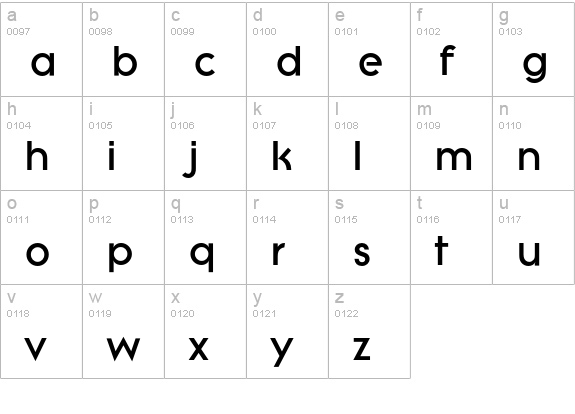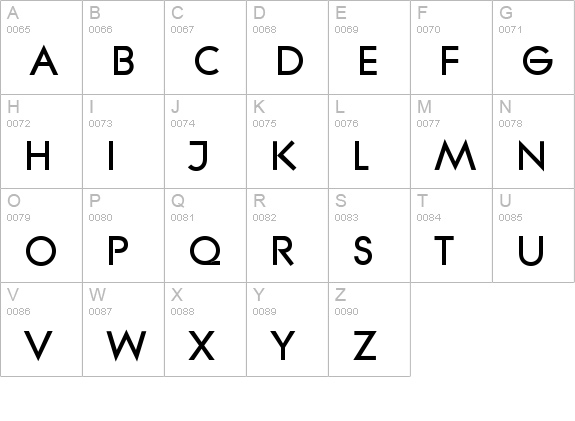
Litera-Heavy is a heavy, high-impact variant in the Litera typeface family \xE2\x80\x94 well suited to high-impact headlines, posters, and display advertising.
Introducing Litera-Heavy font, a robust and commanding typeface designed to make a bold statement. This font features strong, thick strokes that exude confidence and authority, making it perfect for headlines, titles, and branding projects. With its heavy weight and solid presence, Litera-Heavy demands attention and leaves a lasting impression. Best of all, Litera-Heavy is available for free download at FontsMarket.com. This means you can easily incorporate this impactful font into your designs without any cost, adding a touch of strength and sophistication to your projects. Whether you're working on print materials, digital designs, or branding elements, Litera-Heavy is sure to elevate your work with its bold and impactful style. Download your free copy today and let Litera-Heavy help you make a strong statement in your designs.